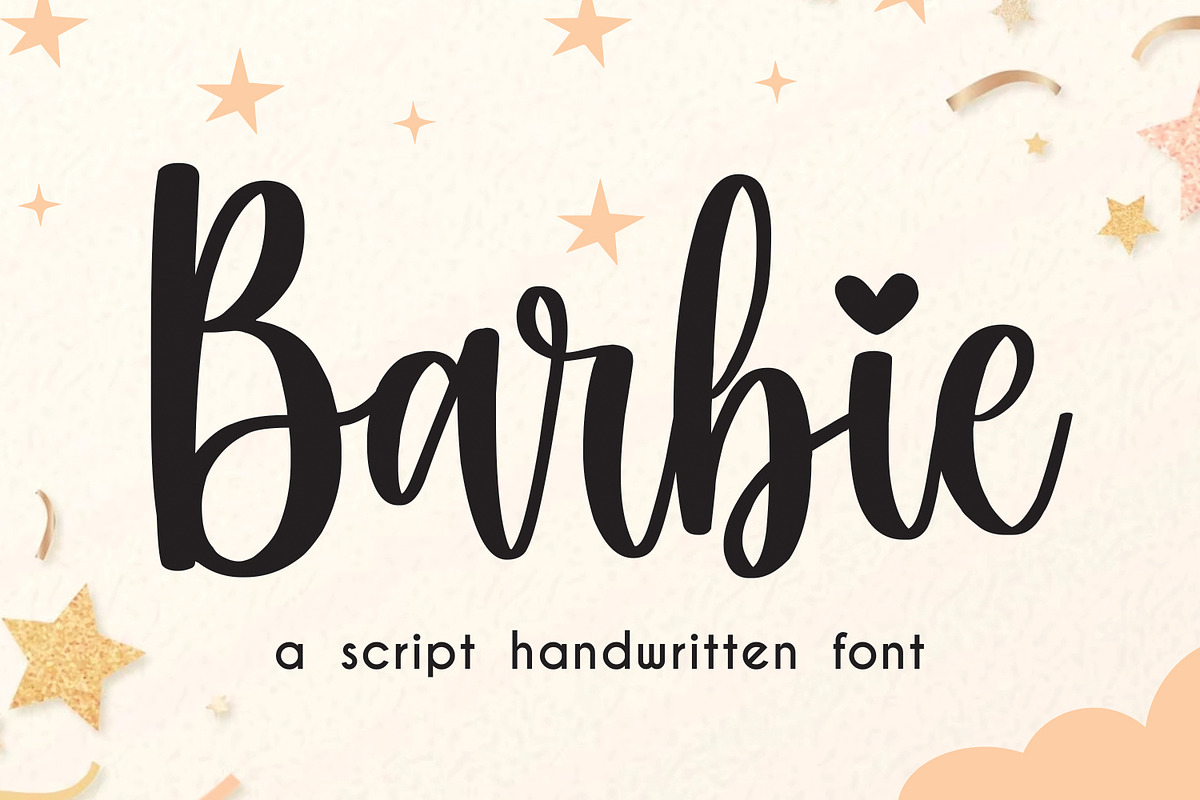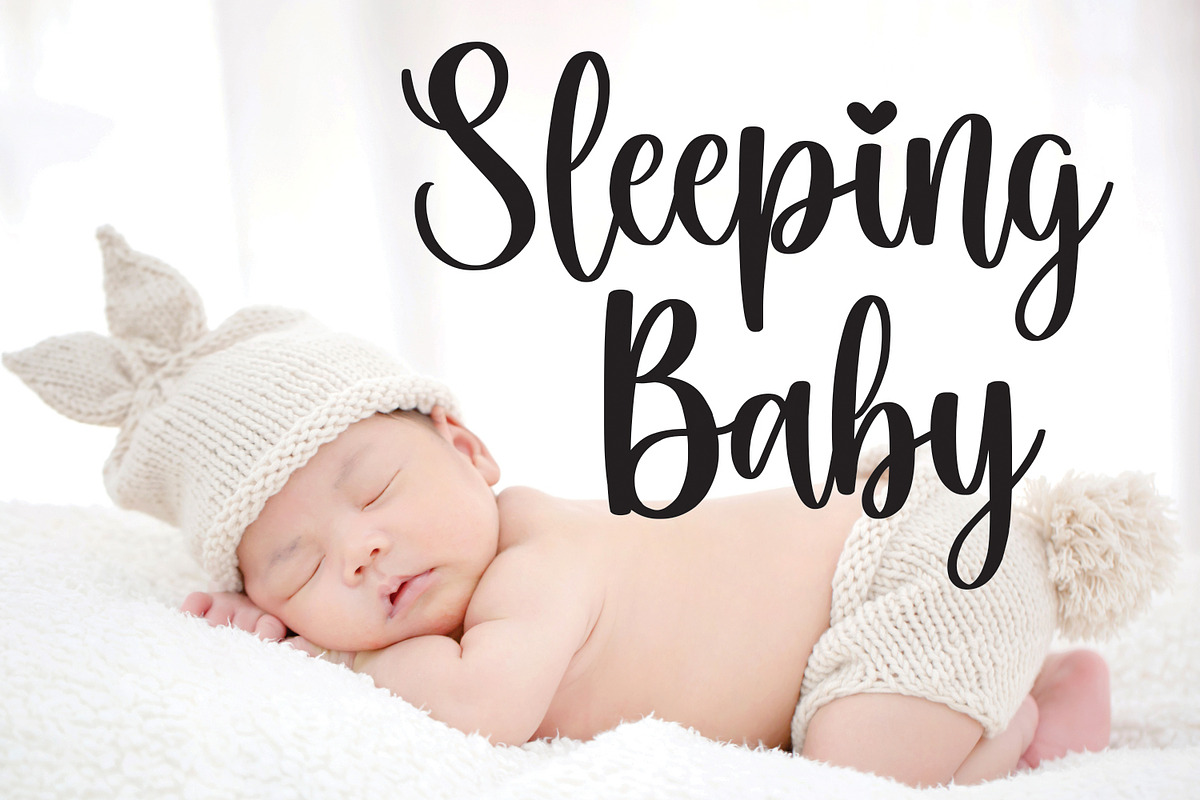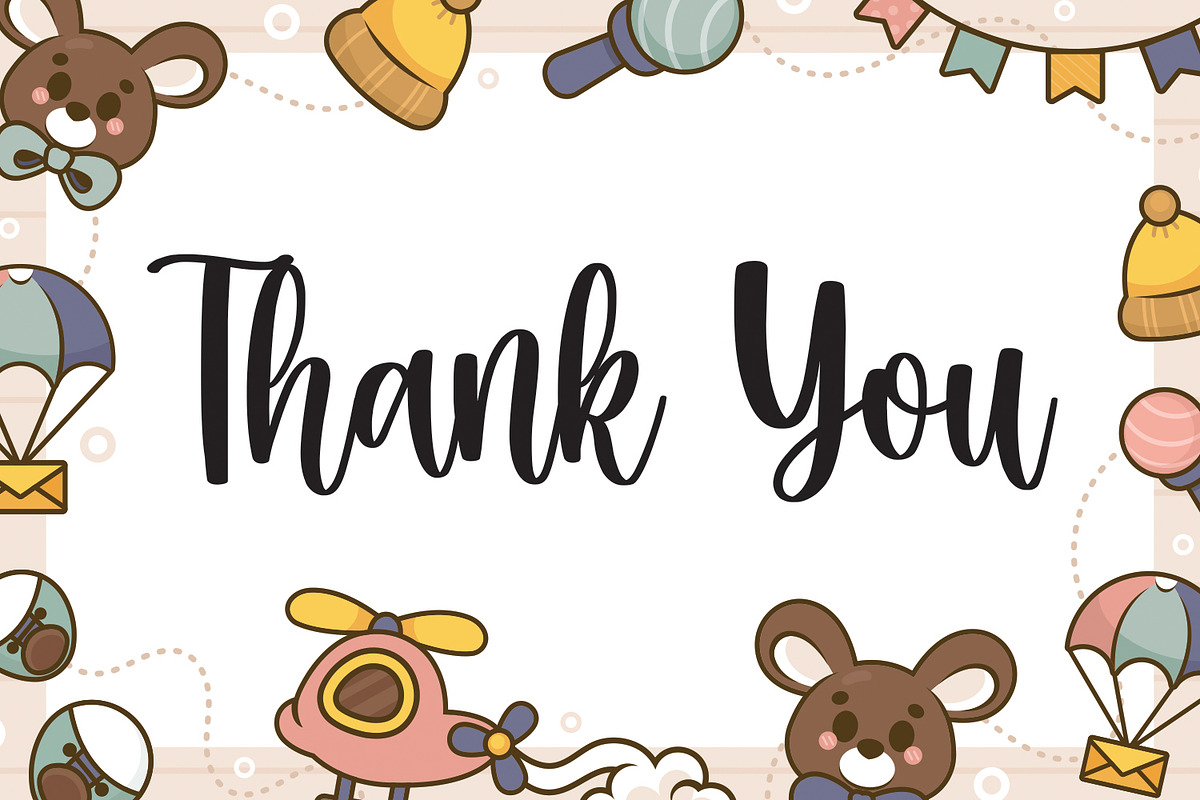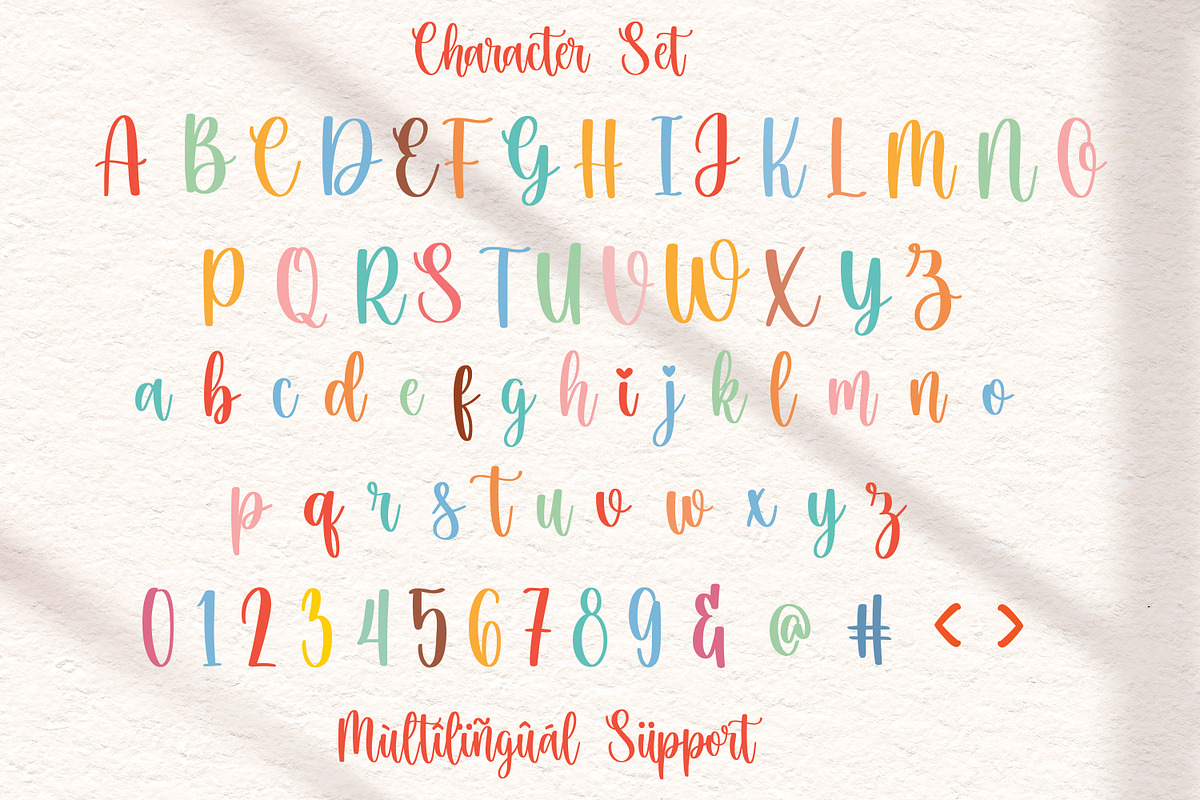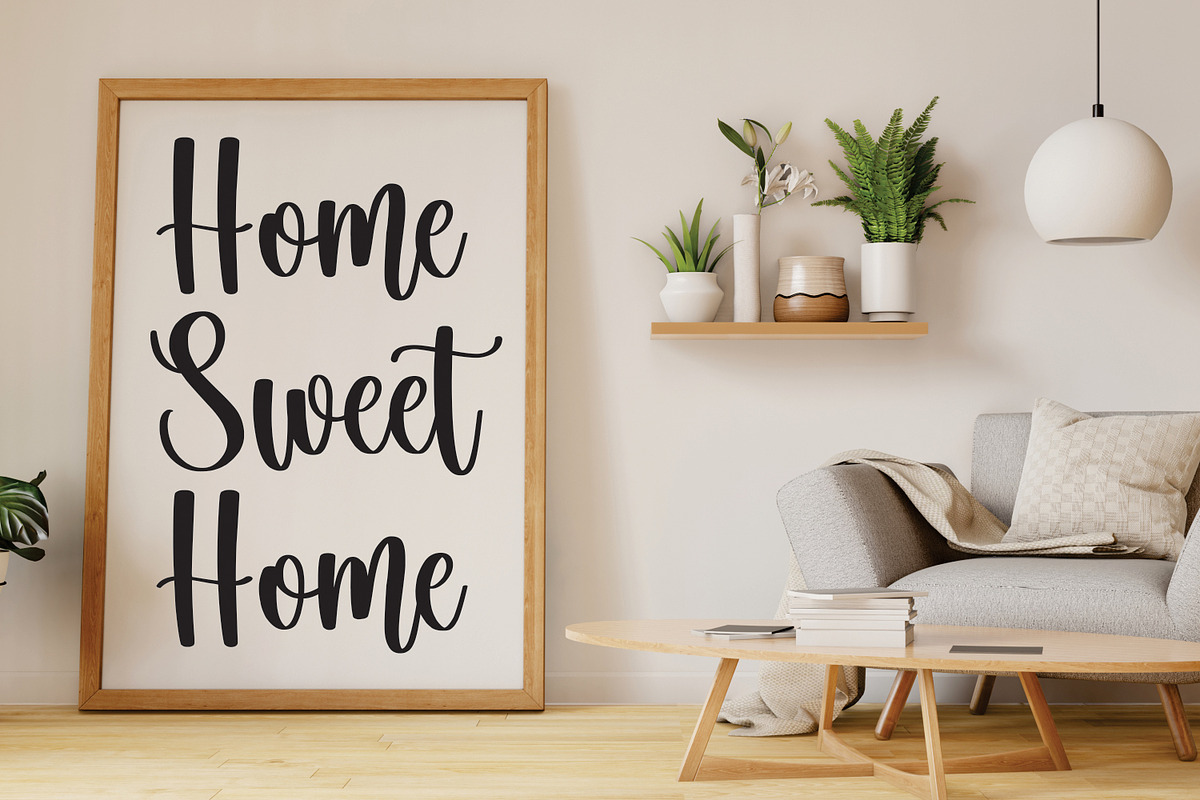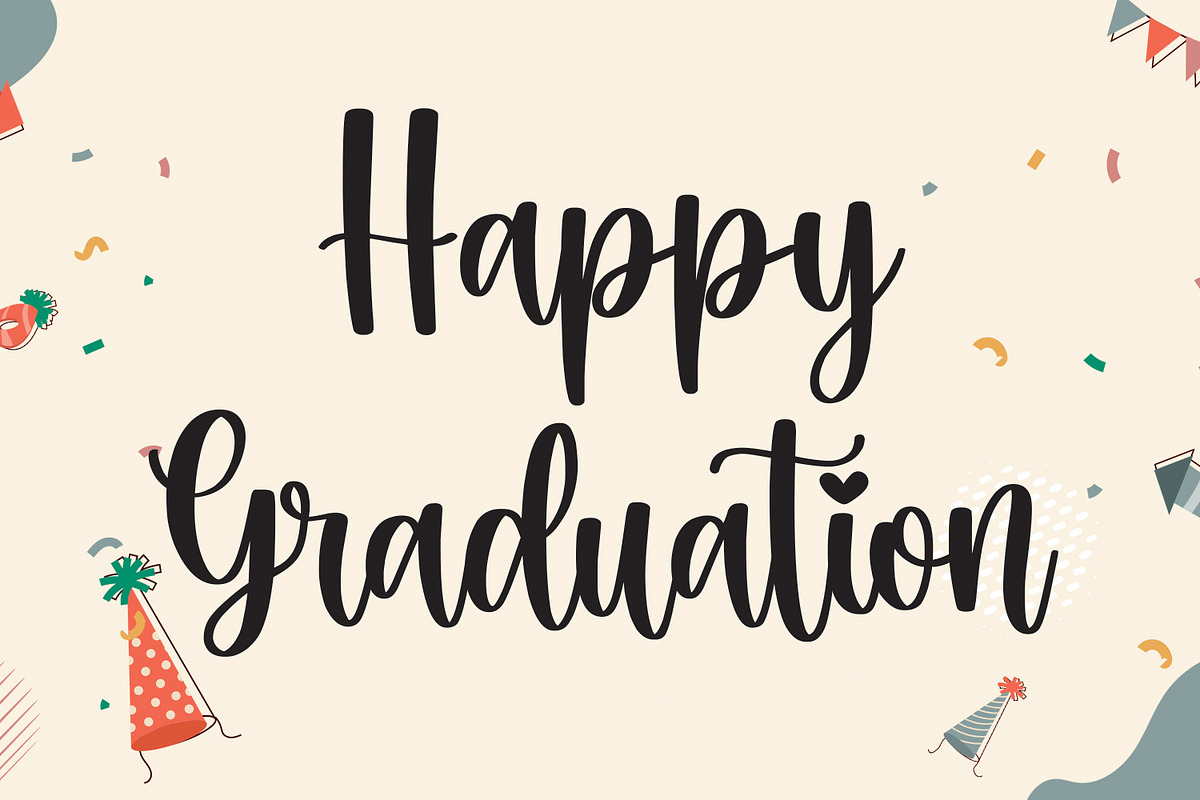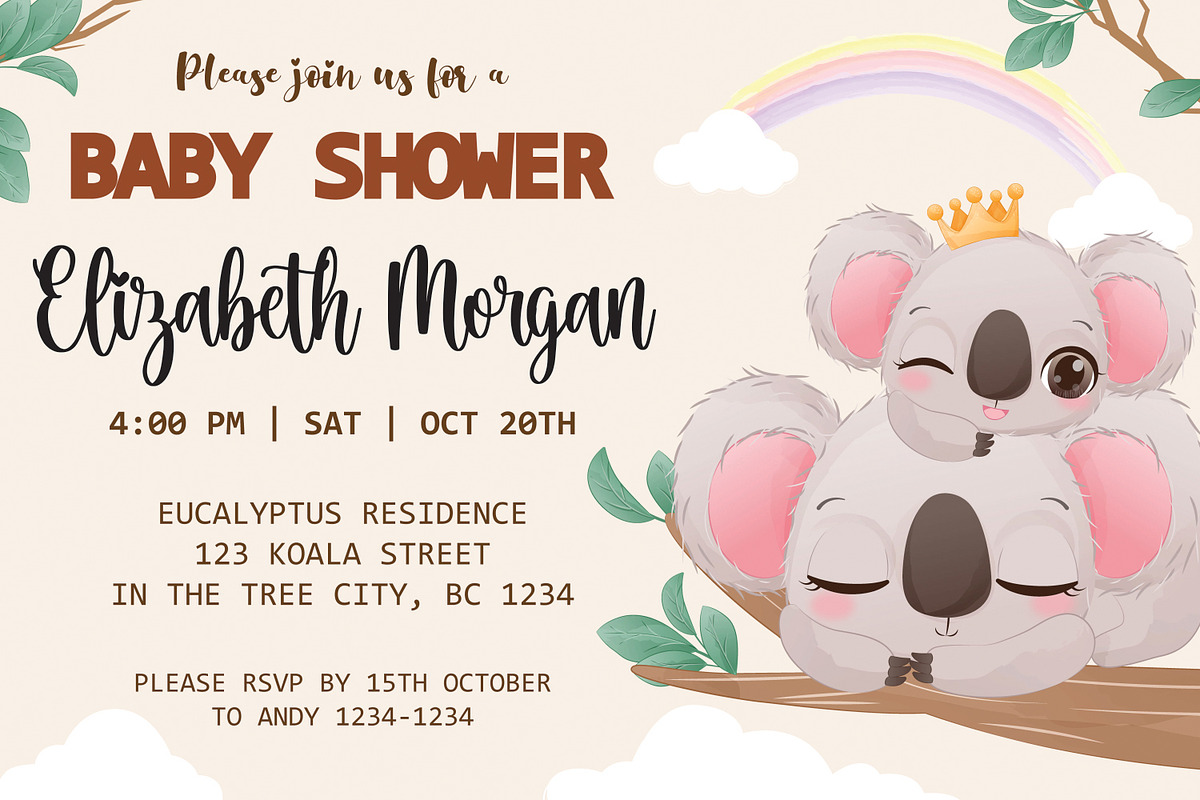
Barbie
The Barbie font exudes a delightful blend of elegance and playfulness, capturing the essence of a handwritten script style. This font carries the spirit of whimsical femininity as if each stroke was handcrafted with care by a skilled calligrapher. The letters dance across the page, gracefully connecting to form words that mirror the curves and loops of flowing cursive. The Barbie font boasts a graceful slant and varying line weights that add depth and dimension to each character, giving it a dynamic and engaging appearance.
Its handwritten charm is reminiscent of a fairy tale, inviting readers to immerse themselves in a world of imagination and enchantment. The characters appear as if they were penned with a dainty brush dipped in magical ink, making them both charming and engaging. The lowercase letters maintain a consistent height, allowing for seamless connectivity between characters. In contrast, the uppercase letters exude a slightly larger size, offering a perfect balance between legibility and artistic flair.
Overall, the Barbie font's script handwritten style embodies a perfect harmony between sophistication and youthful exuberance. It embodies elegance, making it an ideal choice for projects seeking to infuse a touch of whimsical beauty and feminine allure into their designs.